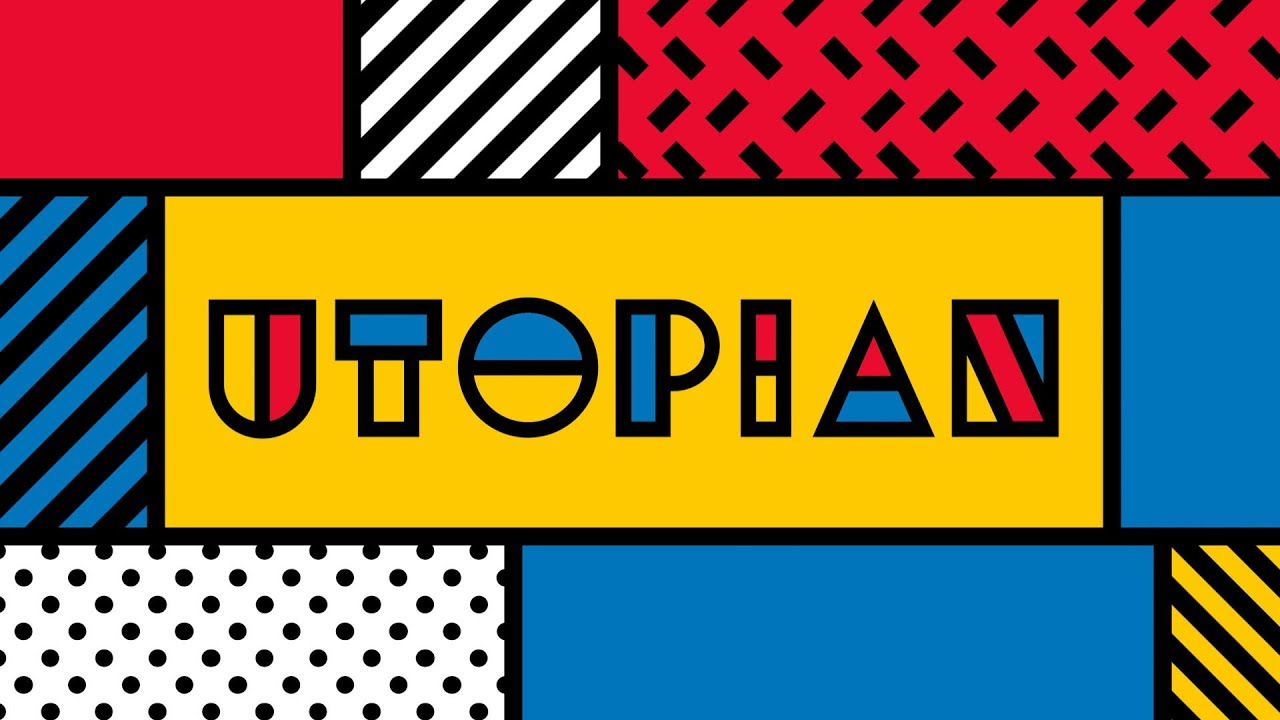
Utopian Animated Typeface By Animography On Dribbble
Utopian Animated Typeface By Animography On Dribbble Utopian animated typeface designed by animography. connect with them on dribbble; the global community for designers and creative professionals. Utopian is an animated typeface by alex trochut and pablo lozano. influenced by the work of mondrian, sol lewitt and de stijl, utopian is a highly graphic, modular type with animations to match.
Animated Typeface Designs Themes Templates And Downloadable Graphic Animated typeface utopian draws on the sleek lines and modern aesthetics of stijl, bauhaus, and art deco design, adding a new level of energy to any project. bring your designs to life with its dynamic letterforms and fluid animations. We're dropping a new animated typeface today! this time it's a collaboration between designer alex trochut and animator pablo lozano. two highly skilled and renowned creatives. their animated typeface is called utopian, and is influenced by the work of mondrian, sol lewitt and de stijl. Utopian is an animated typeface by alex trochut and pablo lozano. influenced by the work of mondrian, sol lewitt and de stijl, utopian is a highly graphic, modular type with animations to match. flourishes are kept to a minimum and focus lays on primary shapes. Utopian is an animated typeface by alex trochut and pablo lozano. influenced by the work of mondrian, sol lewitt and de stijl, utopian is a highly graphic, modular type with animations to match. flourishes are kept to a minimum and focus lays on primary shapes.
Animated Typeface Designs Themes Templates And Downloadable Graphic Utopian is an animated typeface by alex trochut and pablo lozano. influenced by the work of mondrian, sol lewitt and de stijl, utopian is a highly graphic, modular type with animations to match. flourishes are kept to a minimum and focus lays on primary shapes. Utopian is an animated typeface by alex trochut and pablo lozano. influenced by the work of mondrian, sol lewitt and de stijl, utopian is a highly graphic, modular type with animations to match. flourishes are kept to a minimum and focus lays on primary shapes. May 13, 2025 utopian animated typeface designed by animography. connect with them on dribbble; the global community for designers and creative professionals. Utopian is an animated typeface by alex trochut and pablo lozano. influenced by the work of mondrian, sol lewitt and de stijl, utopian is a highly graphic, m. Utopian builds each character from simple rectangle shapes, creating a modular geometric typeface with matching animations. created by alex trochut and pablo lozano, it draws from mondrian, sol lewitt, and de stijl principles. ‘utopian’ is an animated typeface designed by alex trochut and animated by pablo lozano. “influenced by the work of mondrian, sol lewitt and de stijl, utopian is a highly graphic, modular type with animations to match.